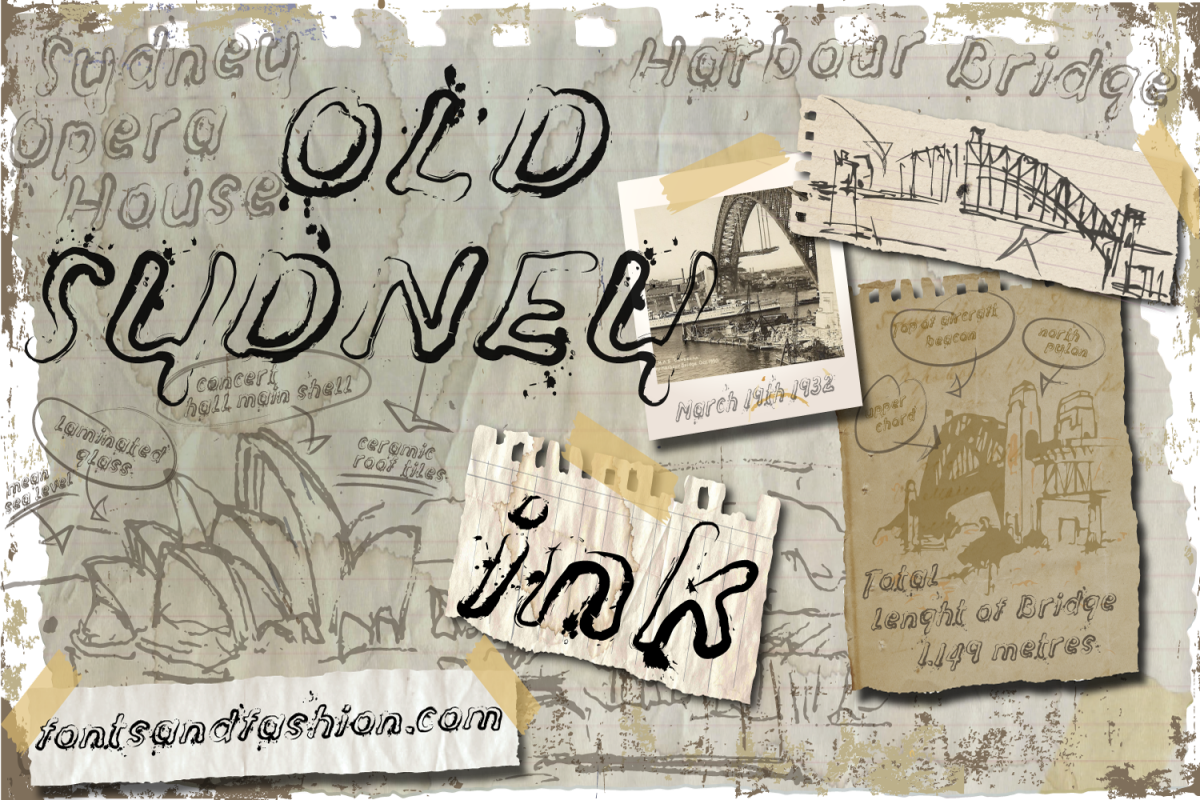
Old Sydney_Ink
“OLD SYDNEY_ink” is the second “change-artist” of the family. It's a "dirty" font that looks unique and quite distinctive, with its charming uneven look that gets even more uneven when it accidentally clashes with any ink stains. It seems written by a creative muddling writer.
The result is a character with a such realism and such an aesthetic beauty, that you can almost smell the ink, and you would liketo try to touch it with your fingers to see if they get dirty of ink.
Maybe it's a bit messy, I admit it, but it has all the features you need to make your artwork look amazing.